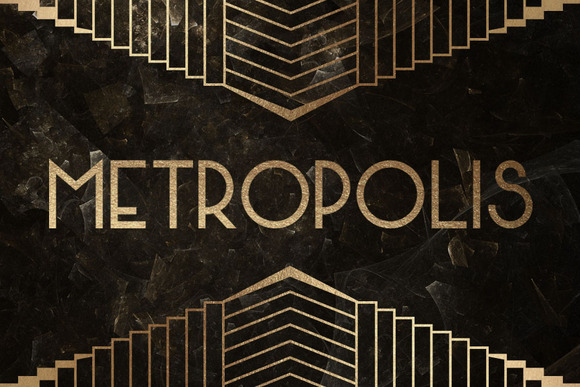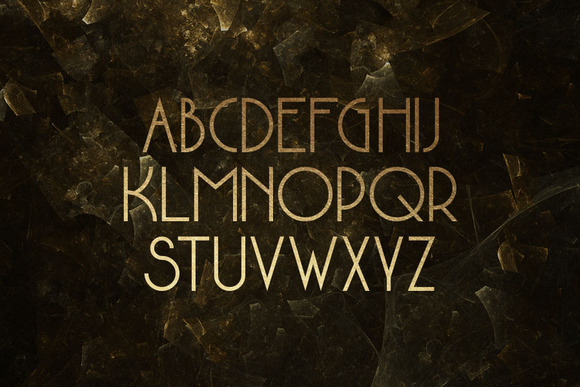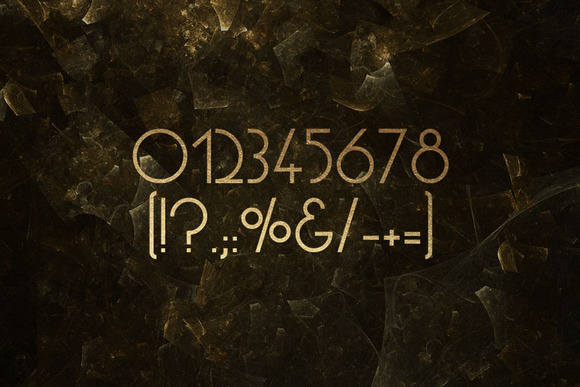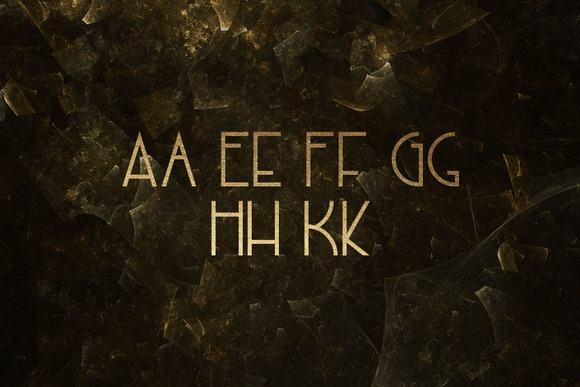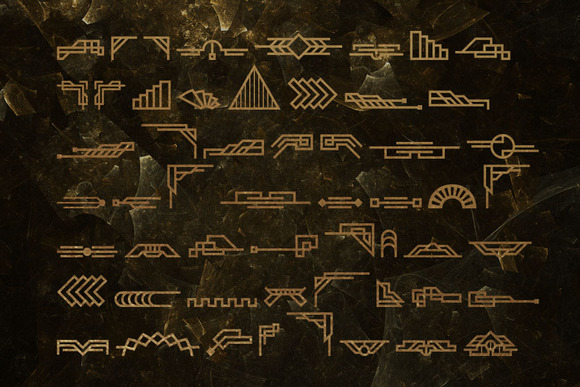
Metropolis Typeface
Metropolis is an art-deco typeface with uppercase letters, numbers and punctuation. Toggle caps lock to use alternate characters.
It also includes 50+ art deco themed ornaments.